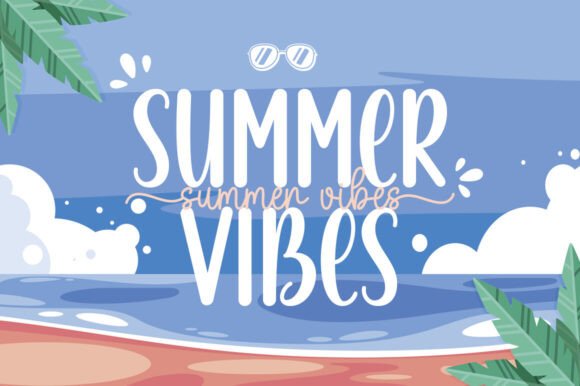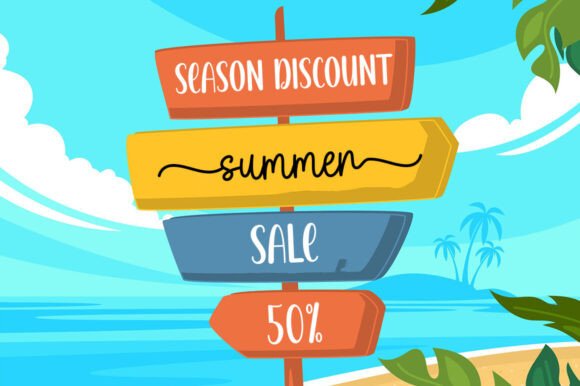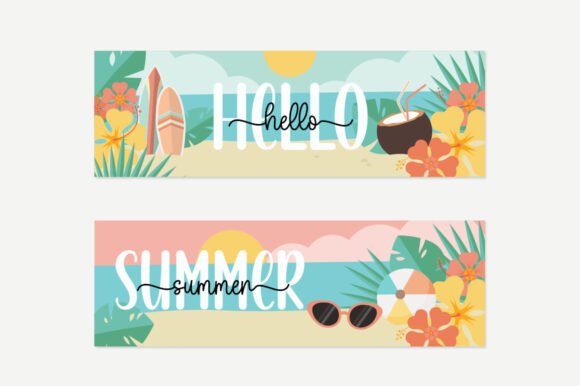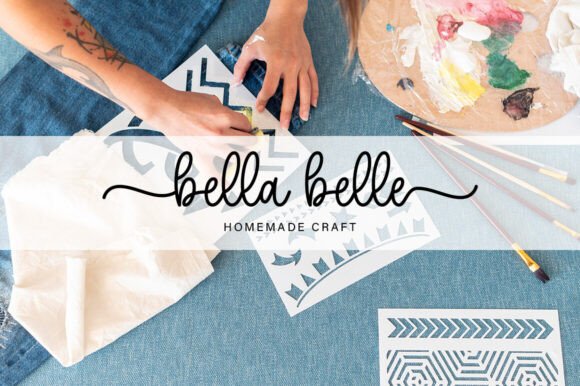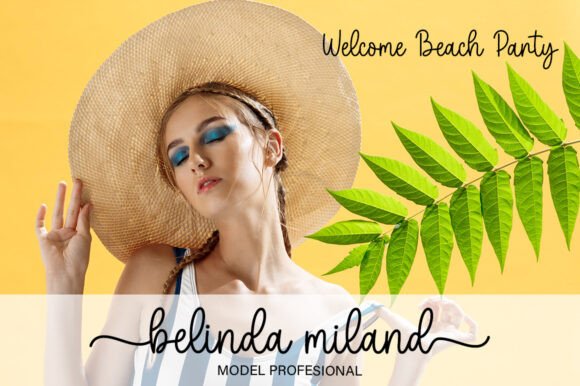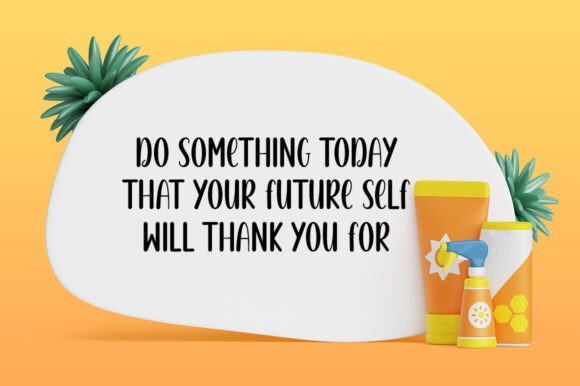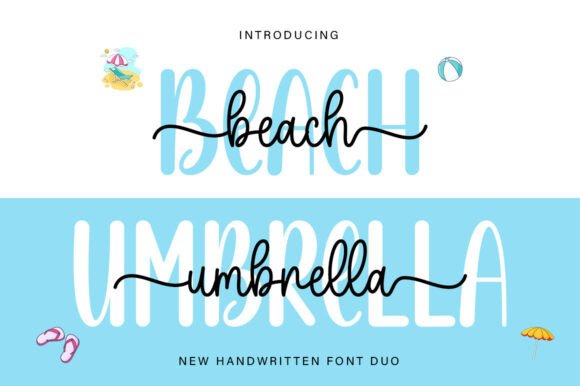
Introducing Beach Umbrella Duo Font: Add a Touch of Romance to Your Creations
Are you a designer, crafter, or DIY enthusiast looking for a font that can add a romantic touch to your creations? Look no further than the Beach Umbrella Duo Font, a stylish and delicate duo font that combines a sans serif and script font. This versatile font duo is perfect for a wide range of applications, from greeting cards to headlines, and is sure to make your projects stand out.
What Makes Beach Umbrella Duo Font So Special?
Beach Umbrella Duo Font is a unique and beautiful font that offers a range of features that make it perfect for designers and crafters. Here are just a few of the things that set it apart:
• Duo Font: Beach Umbrella Duo Font comes with two fonts in one – a sans serif font and a script font. This allows you to mix and match the fonts to create a unique and visually appealing look.
• PUA Encoded: The font is PUA (Private Use Area) encoded, which means that you can access all of the glyphs and ligatures with ease. This makes it easy to use the font to create beautiful and intricate designs.
• Romantic Touch: The Beach Umbrella Duo Font has a romantic and delicate feel that is perfect for creating beautiful and sentimental designs. Whether you’re making greeting cards, invitations, or other projects, this font is sure to add a touch of elegance and sophistication.
Uses for Beach Umbrella Duo Font
Beach Umbrella Duo Font is a versatile font that can be used for a wide range of projects. Here are just a few ideas to get you started:
• Greeting Cards: Use the Beach Umbrella Duo Font to create beautiful and sentimental greeting cards for special occasions like weddings, anniversaries, and birthdays.
• Headlines: The sans serif font is perfect for headlines, and can be used to add a touch of elegance and sophistication to your designs.
• Invitations: Use the script font to create beautiful and intricate invitations for special events like weddings, baby showers, and bridal showers.
• DIY Projects: Beach Umbrella Duo Font is perfect for DIY projects like scrapbooking, journaling, and mixed media art.
Tips for Using Beach Umbrella Duo Font
Here are a few tips for using Beach Umbrella Duo Font to get the most out of this beautiful font:
• Experiment with Different Pairings: Try pairing the sans serif font with the script font to create a unique and visually appealing look.
• Use the PUA Encoded Glyphs: Take advantage of the PUA encoded glyphs and ligatures to add intricate details to your designs.
• Play with Size and Color: Experiment with different sizes and colors to add depth and interest to your designs.
Beach Umbrella Duo Font is a beautiful and versatile font duo that is perfect for designers, crafters, and DIY enthusiasts. With its romantic and delicate feel, PUA encoding, and duo font design, it’s the perfect addition to any design project. Whether you’re making greeting cards, headlines, or DIY projects, Beach Umbrella Duo Font is sure to add a touch of elegance and sophistication. So why wait? Download Beach Umbrella Duo Font today and start creating beautiful and sentimental designs that will leave a lasting impression.